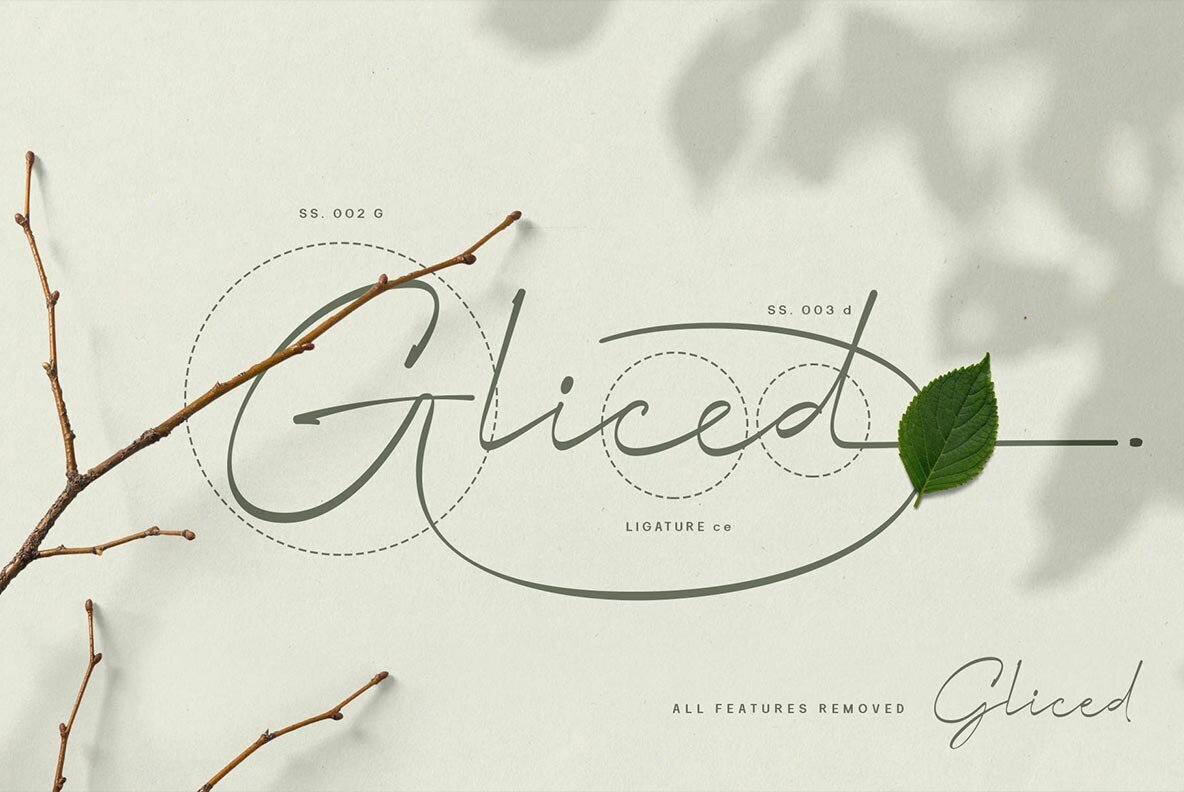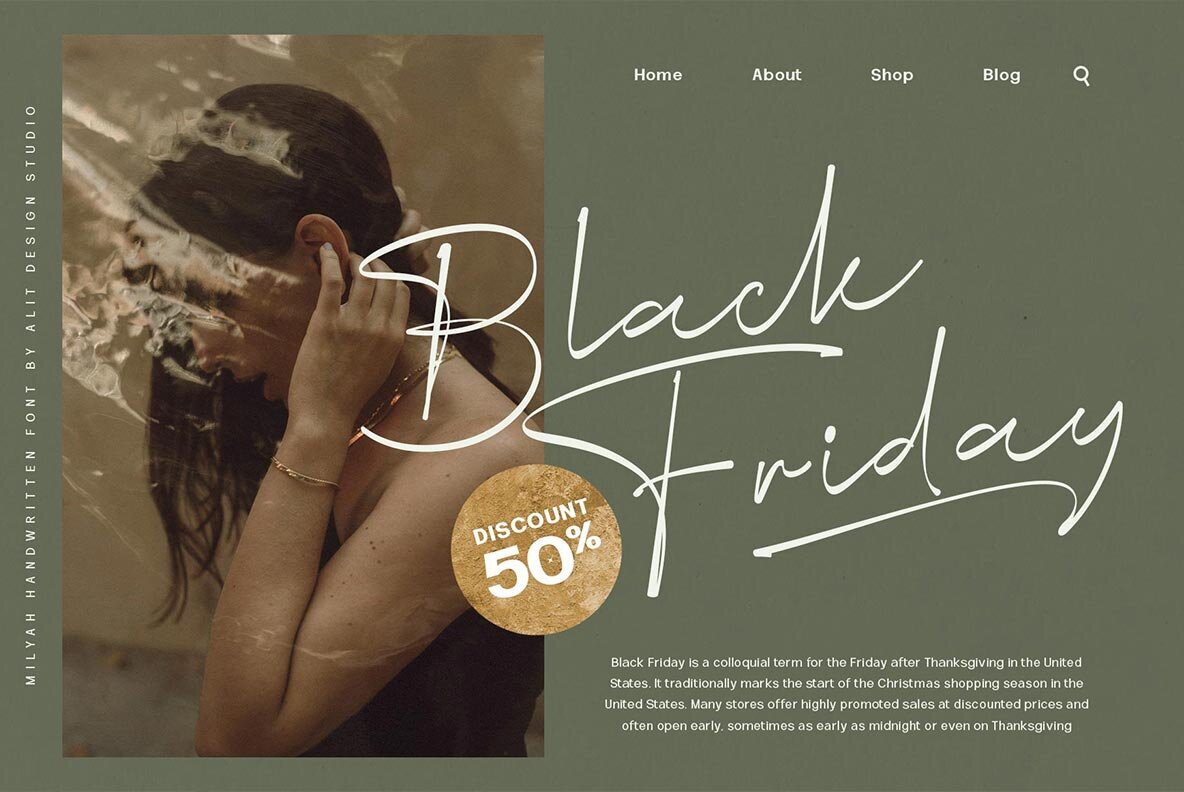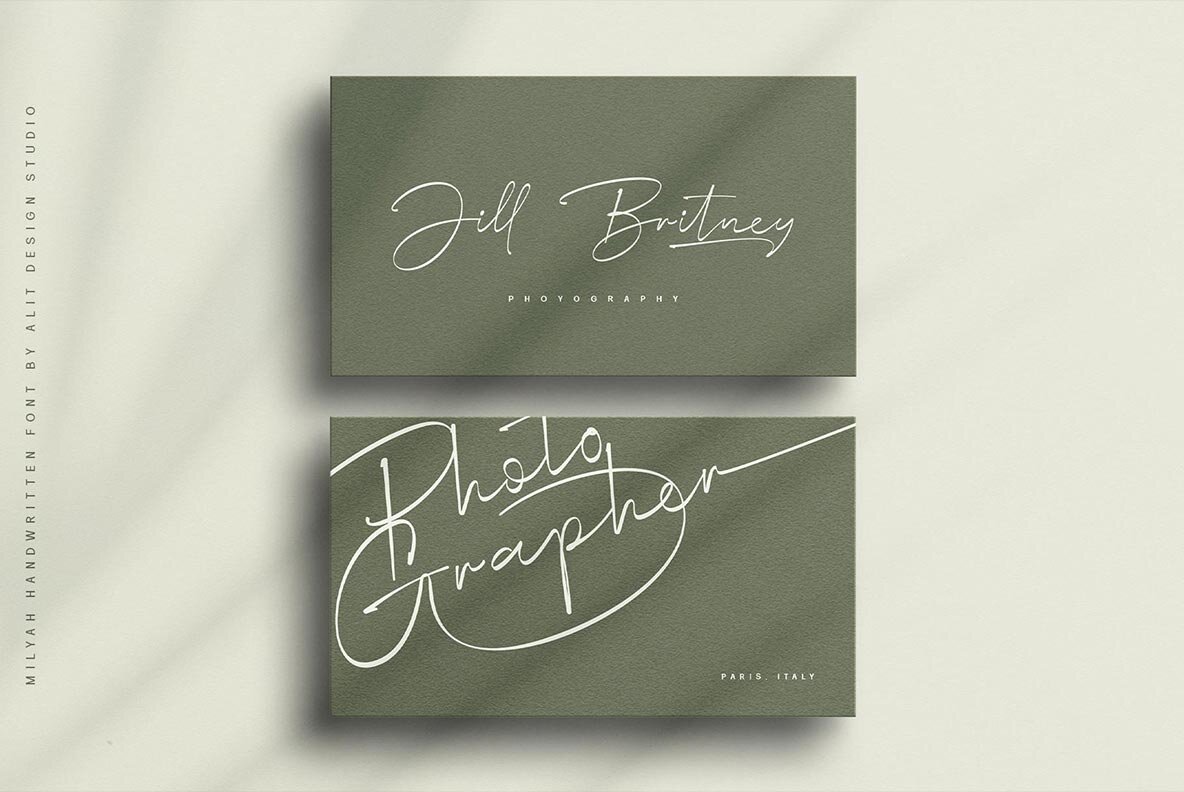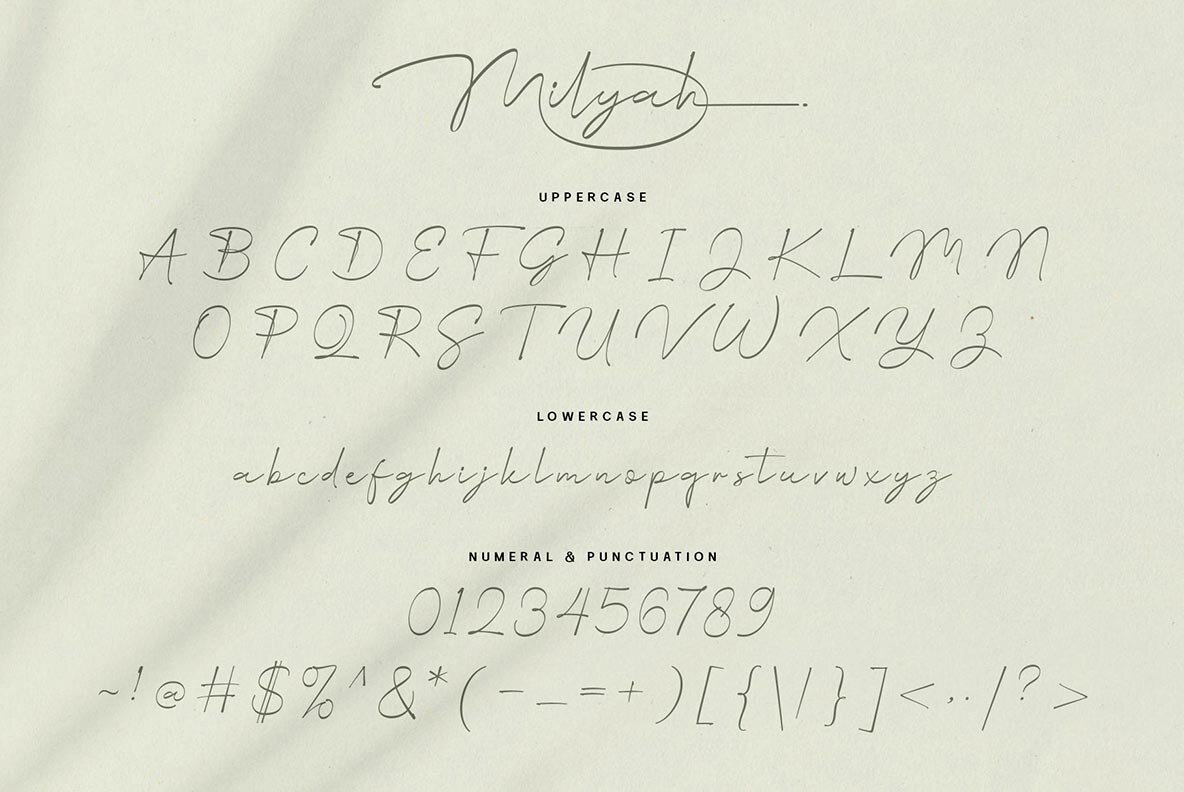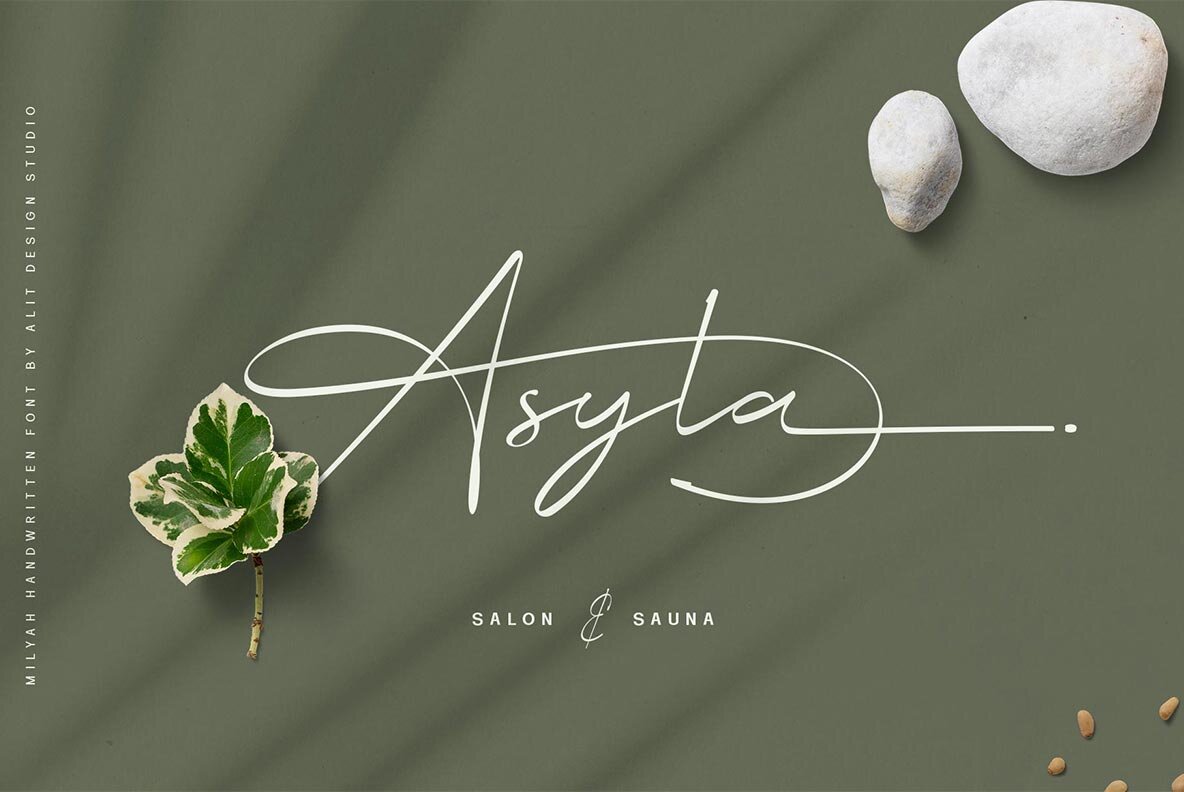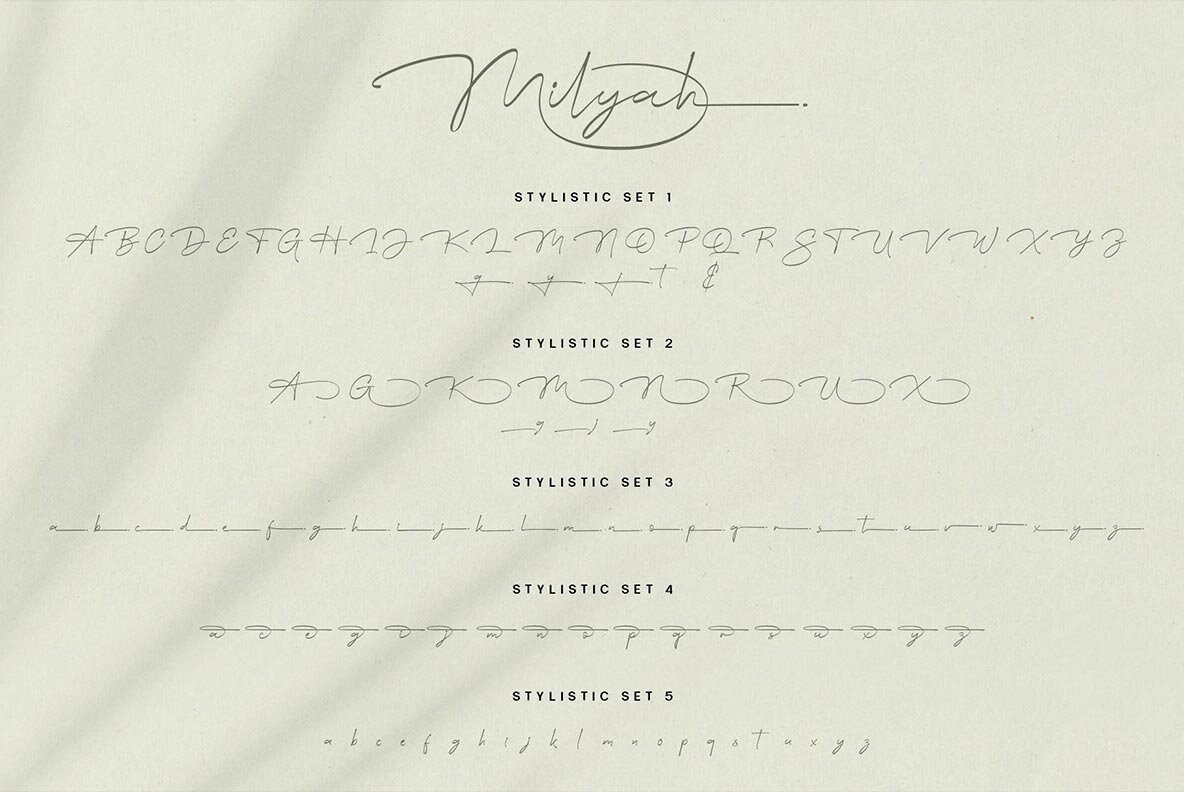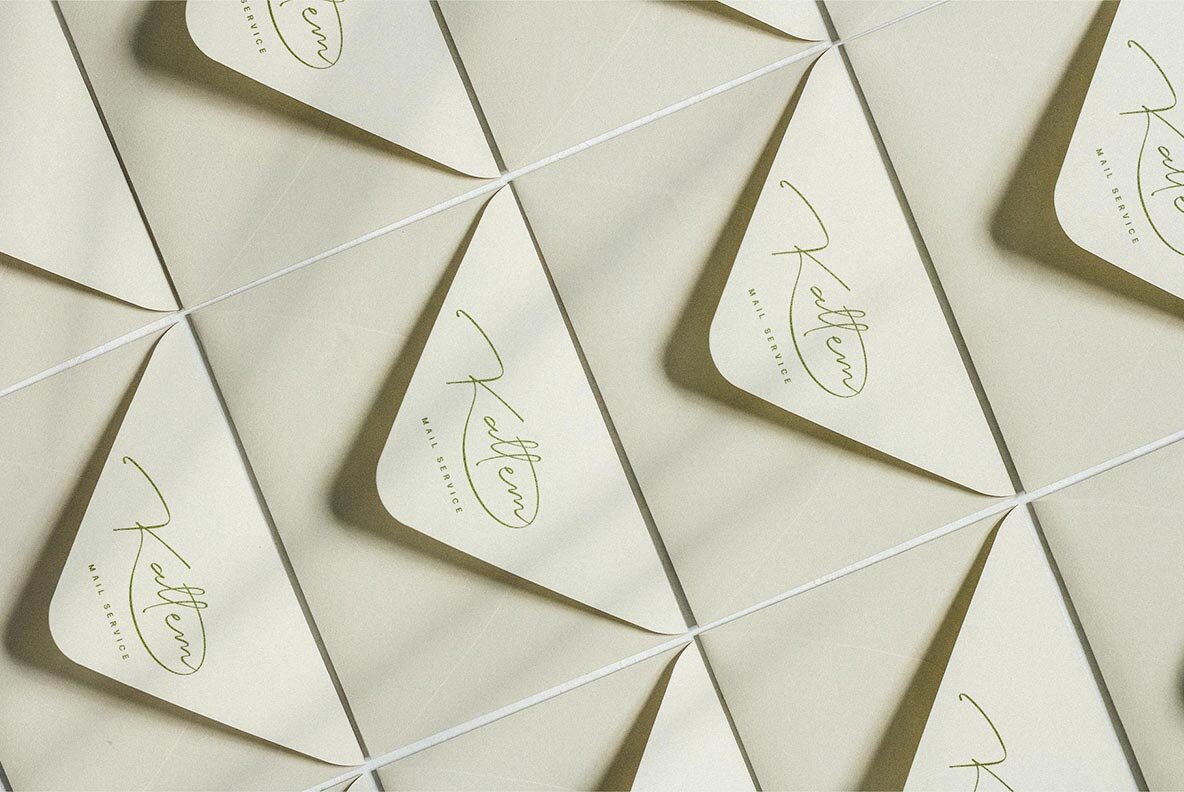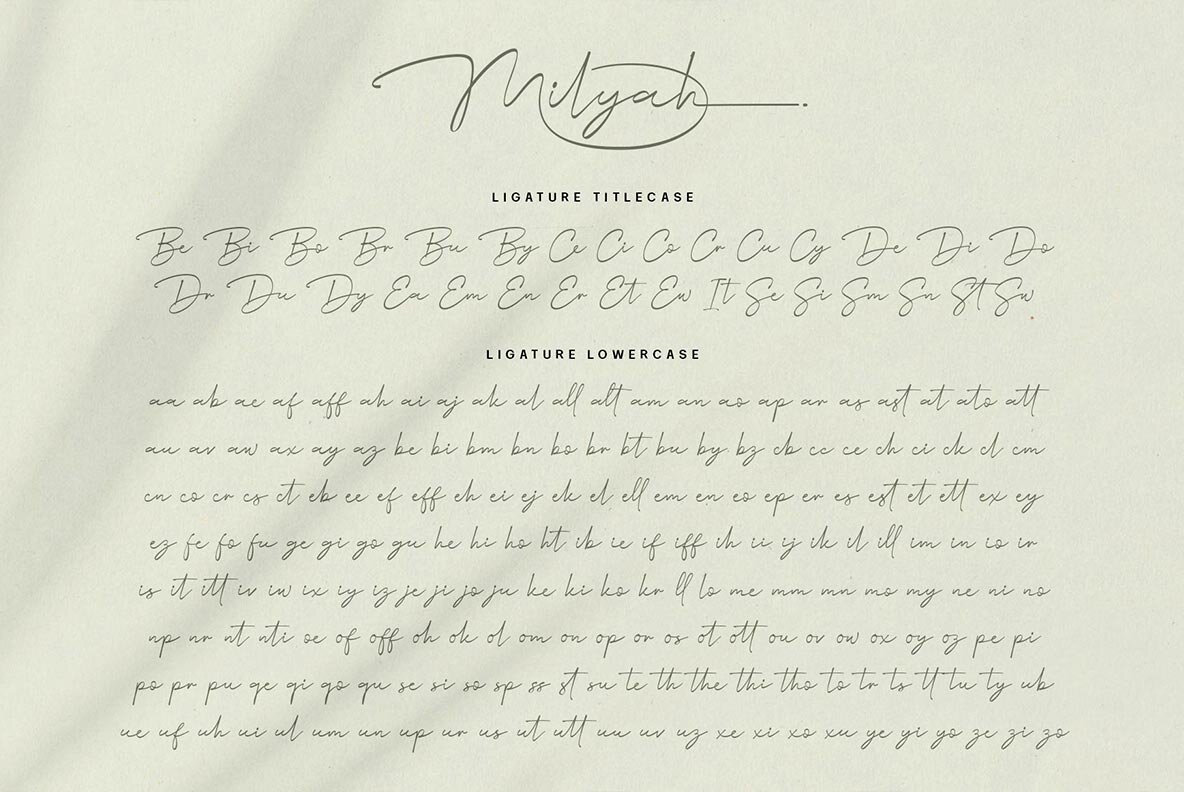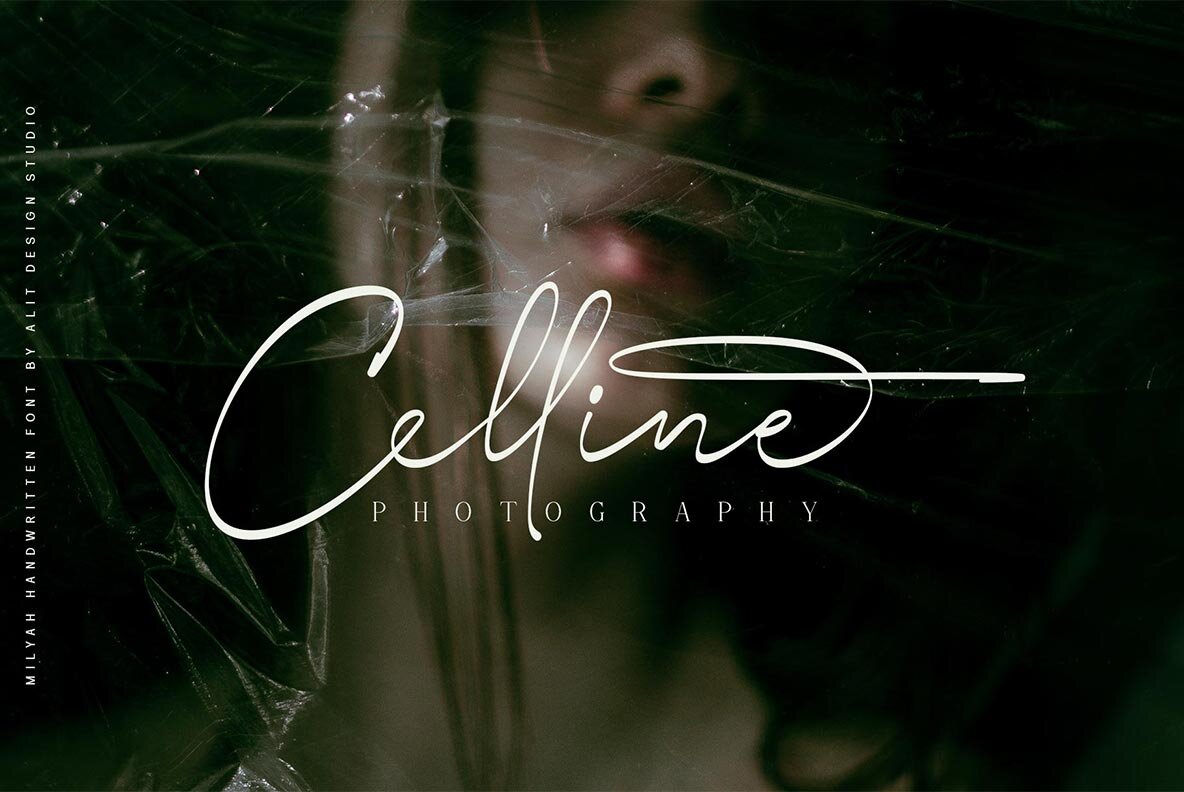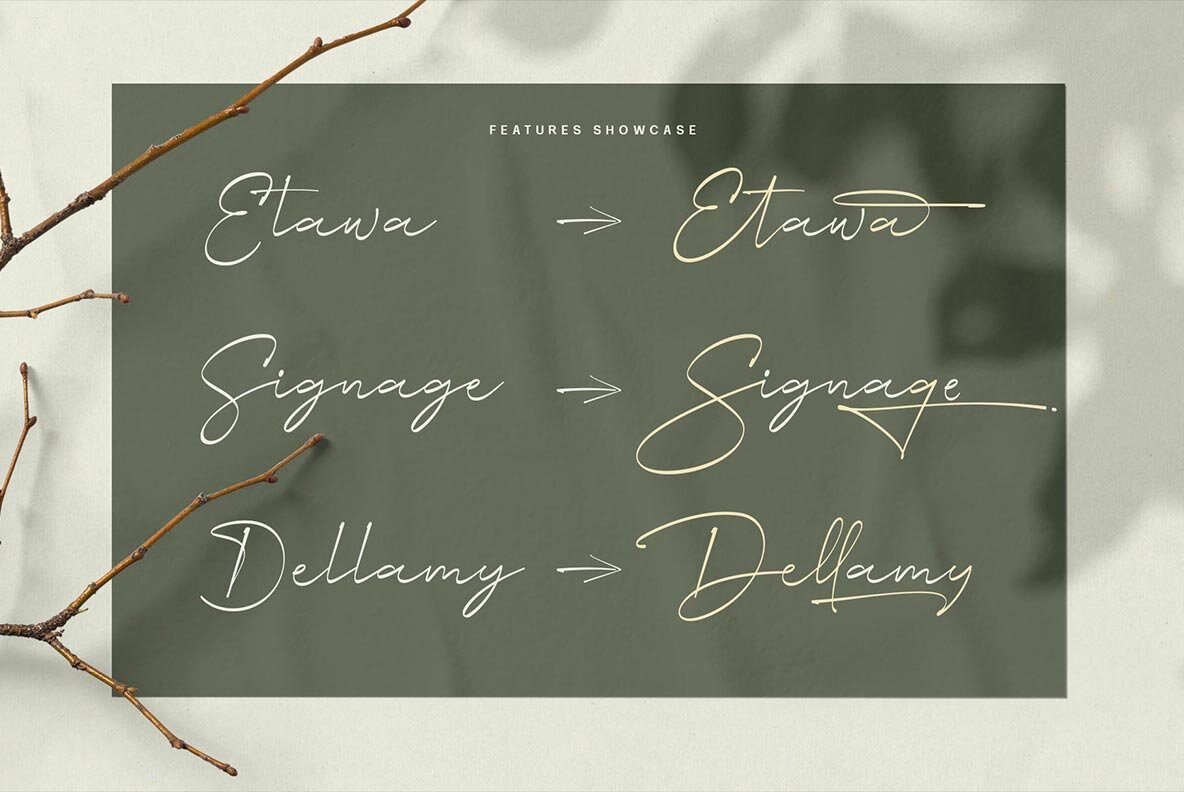
Milyah Font
Milyah Regular
The Milyah Signature Script font is perfect for making unique designs or lettering. It's an ink texture that makes the signature strokes look real, and it looks good enough to be used in any design!